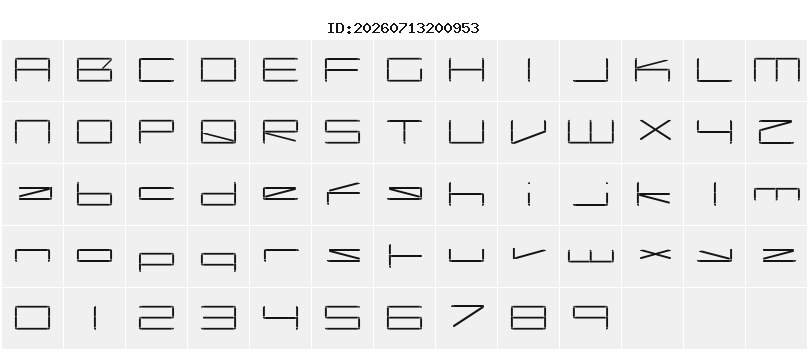
About Capacitor.ttf
Capacitor.ttf is a modern, elegant sans-serif font designed for ultimate readability and visual harmony. Perfect for branding, headlines, web design, and print materials.